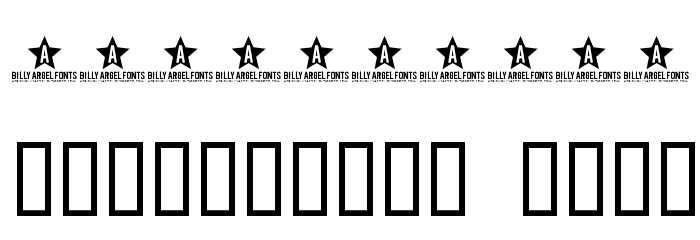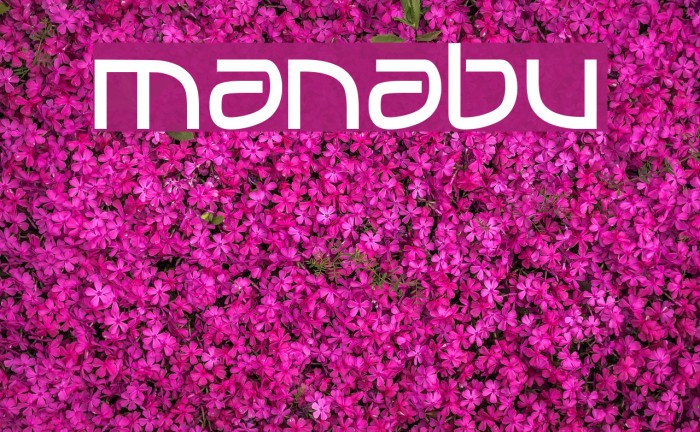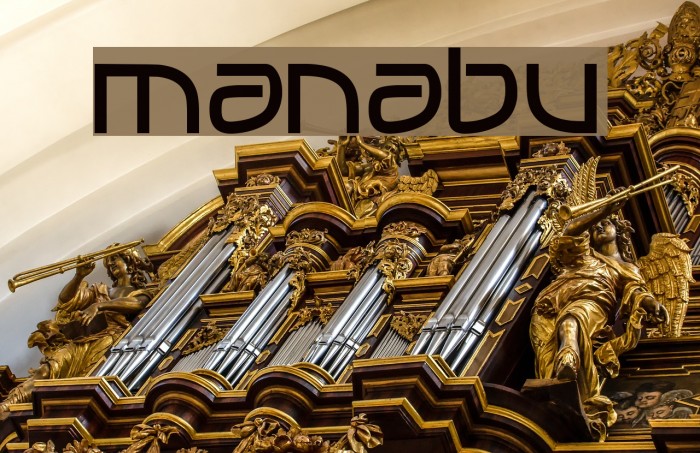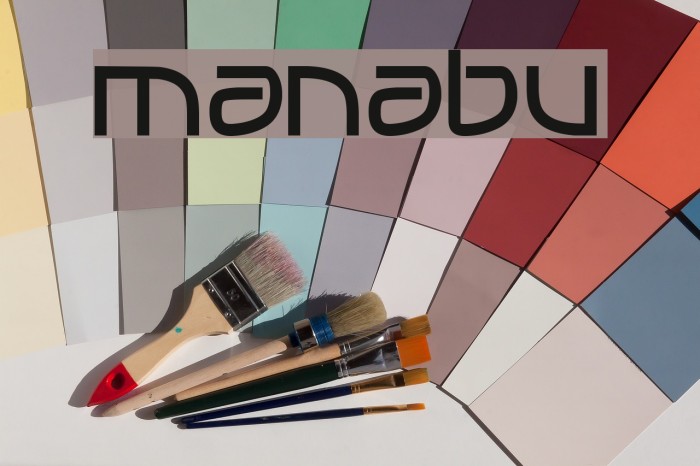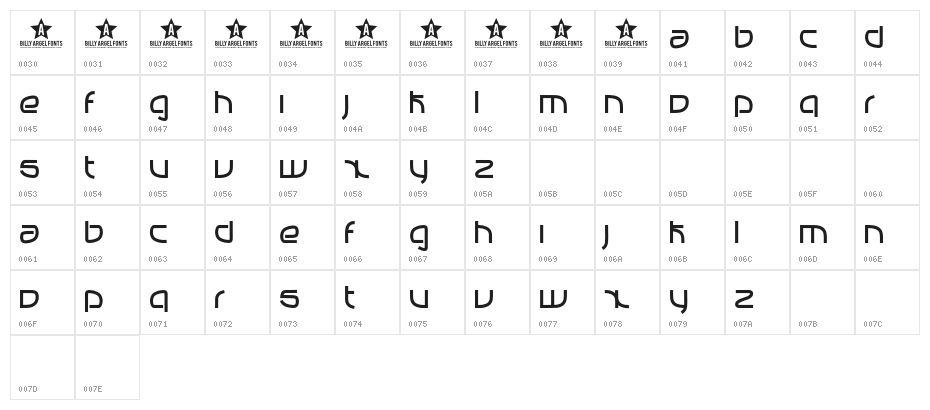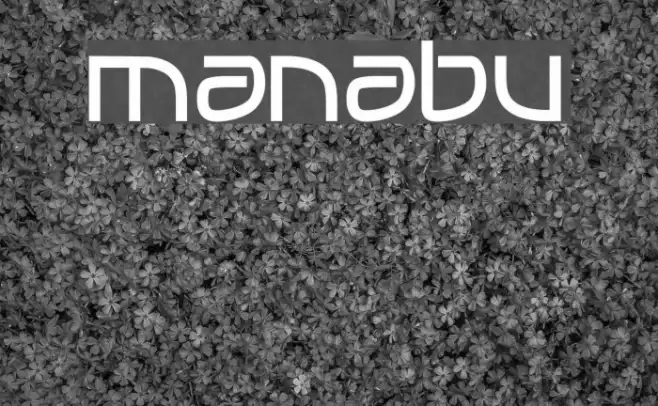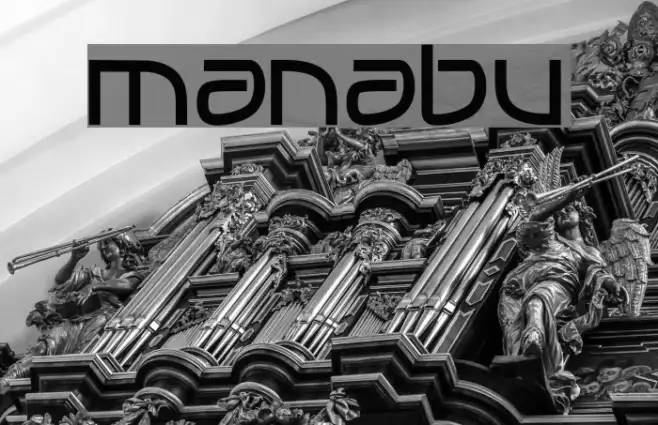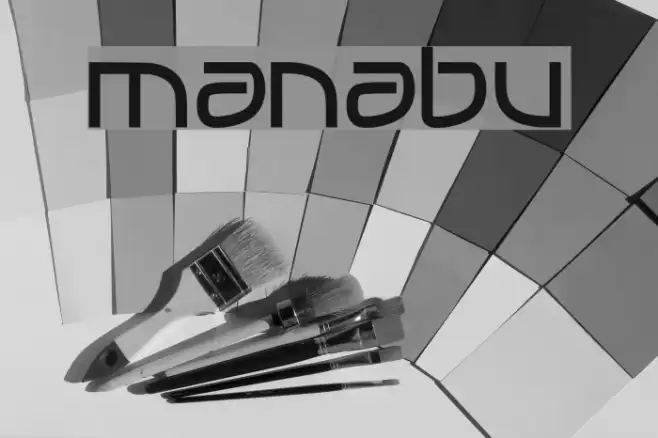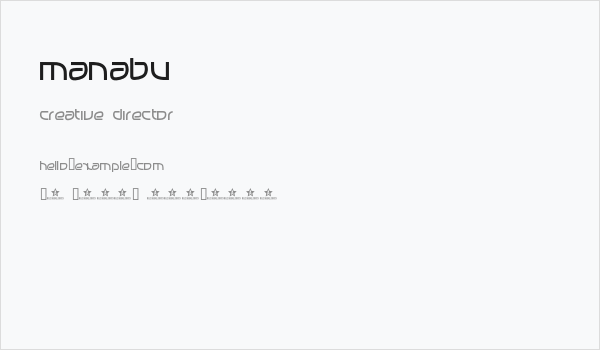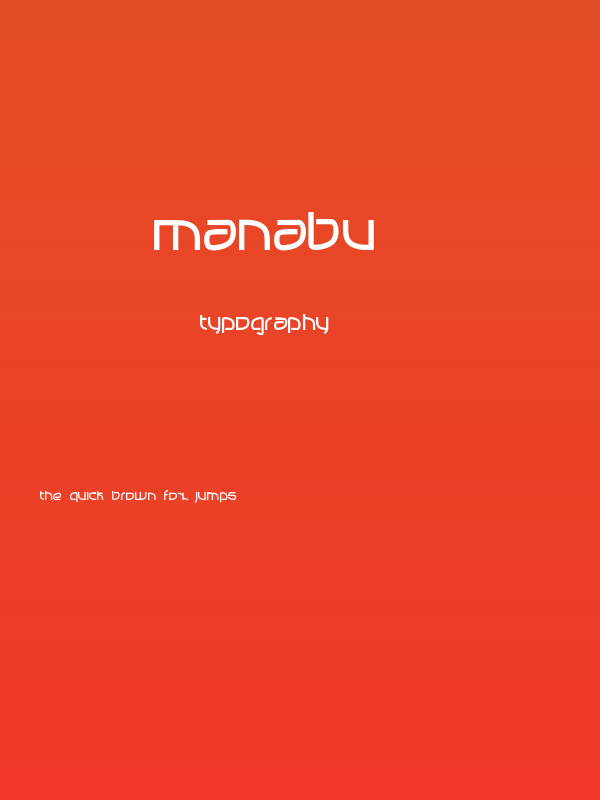
MANABU_ Font
This font features a modern and futuristic design with clean, geometric lines and a distinct angular style. The characters are uniform in height, creating a cohesive and structured appearance. The font's unique design elements, such as the sharp angles and smooth curves, give it a sleek and contemporary look. It's highly legible, making it suitable for various digital and print applications. The font maintains a consistent weight throughout, providing a balanced and harmonious visual impact. Its distinctive style makes it ideal for projects that require a modern and innovative touch.
A modern, geometric font with clean lines and angular design.
- Proposed Projects: Ideal for tech branding, digital interfaces, modern advertising, and futuristic design projects.
- Use Case: Headlines, Logos, Digital interfaces